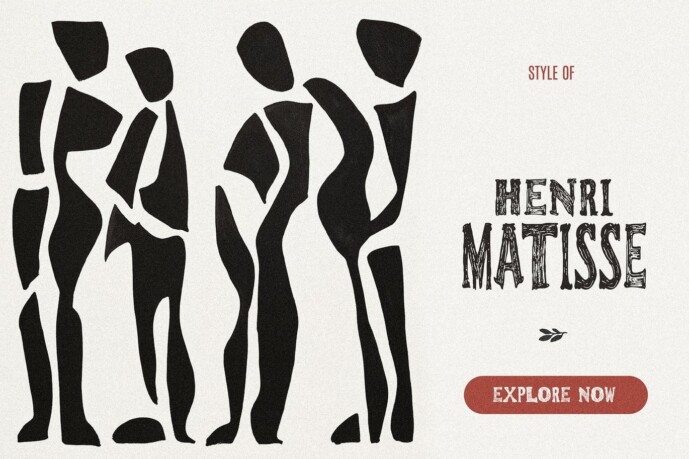
Gröm Font
Gröm Font, a tall, sturdy screen. With its bold lettering and distressed style, Gröm embodies the enduring spirit of the great outdoors, making it perfect for all kinds of adventurous designs.
When your design calls for a standout, larger-than-life look, reach for Gröm. This imposing font brings rugged texture and bold attitude to headers, logos, and display use of all kinds.